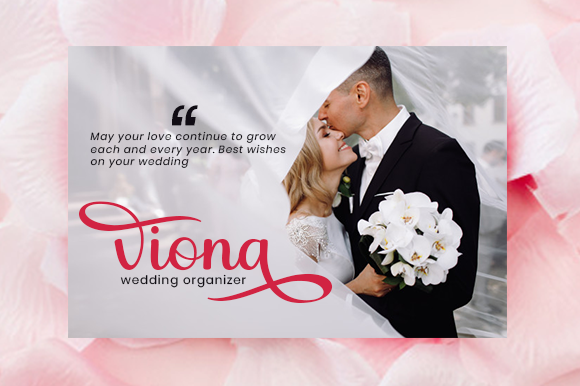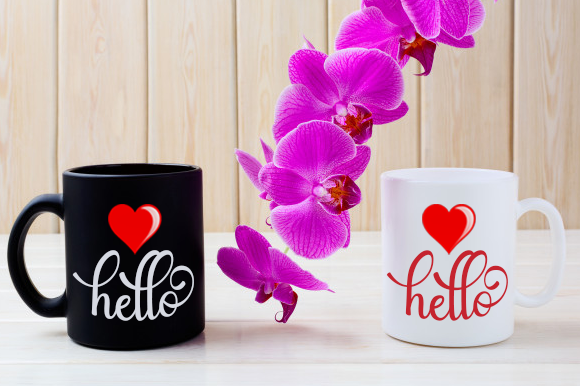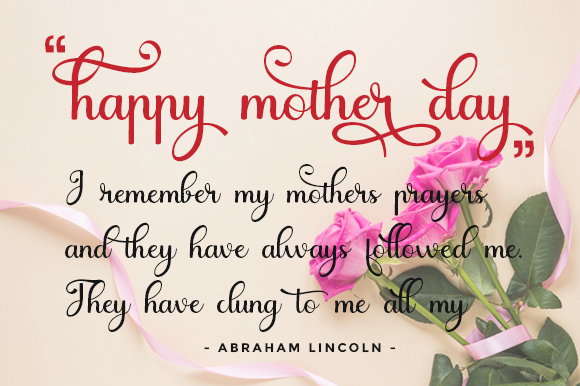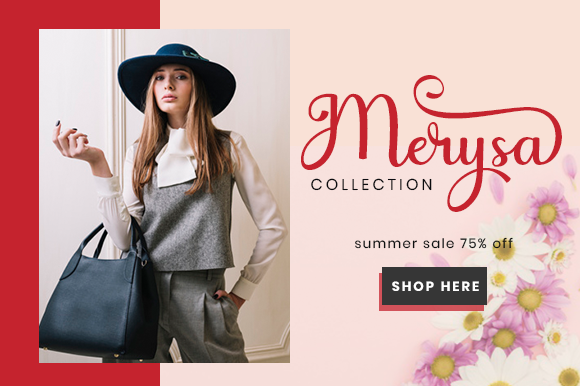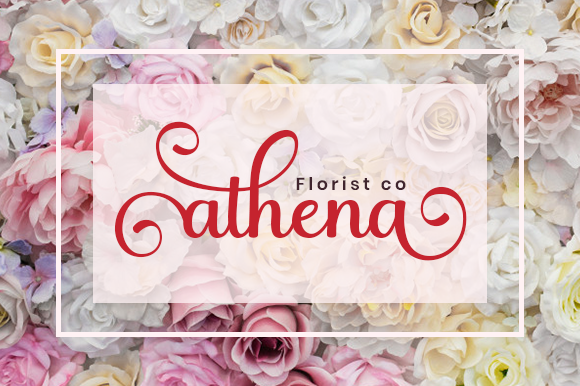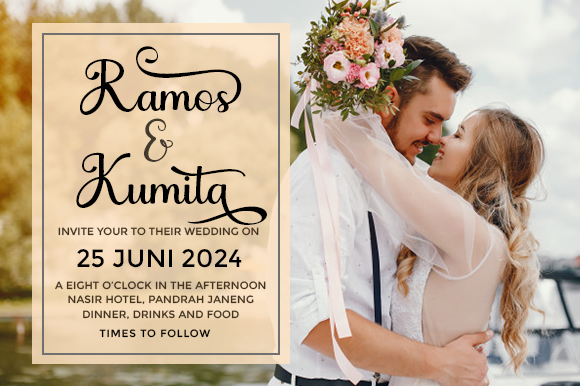
Introduction to Kehyna Font
Kehyna feels equally charming and elegant.
This stunning handwritten font is a stylish homage to classic calligraphy and will take your project to the next level .
Key Features of Kehyna Font
Why Choose Kehyna Font?